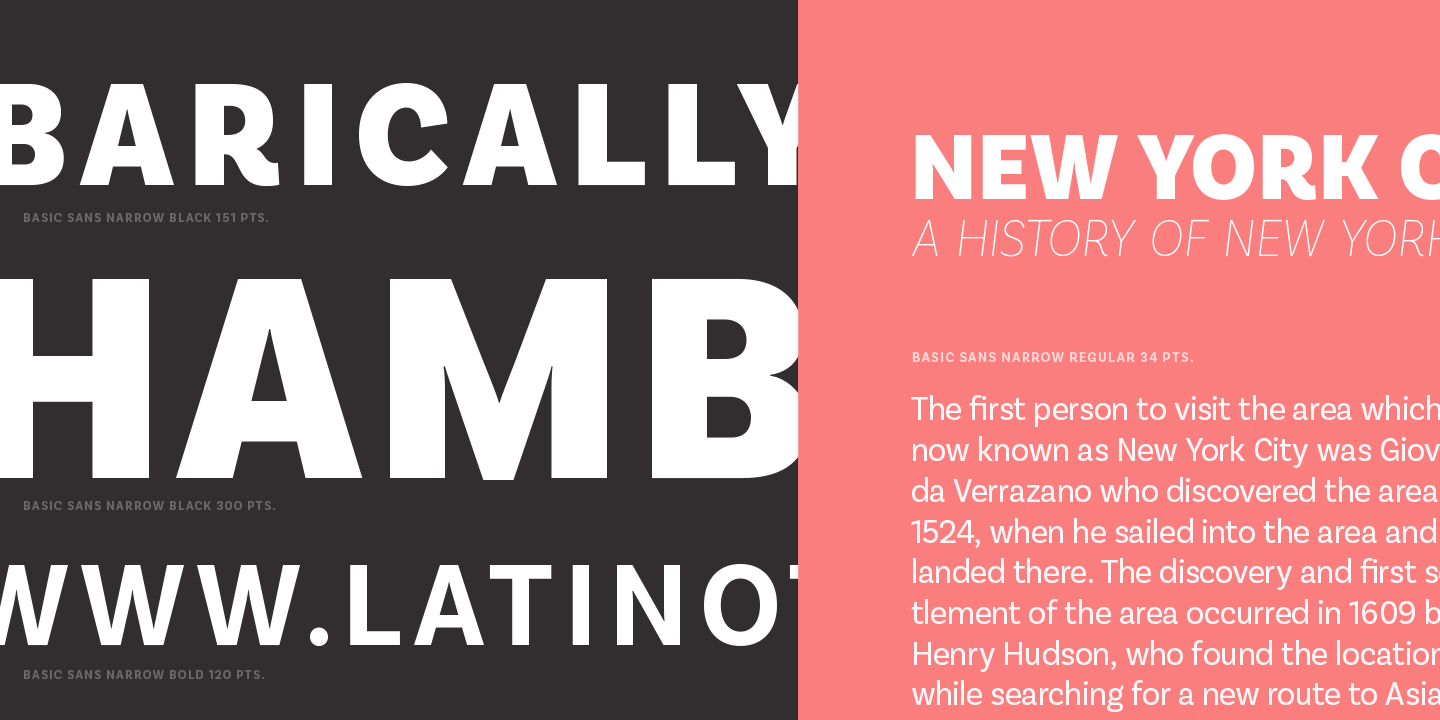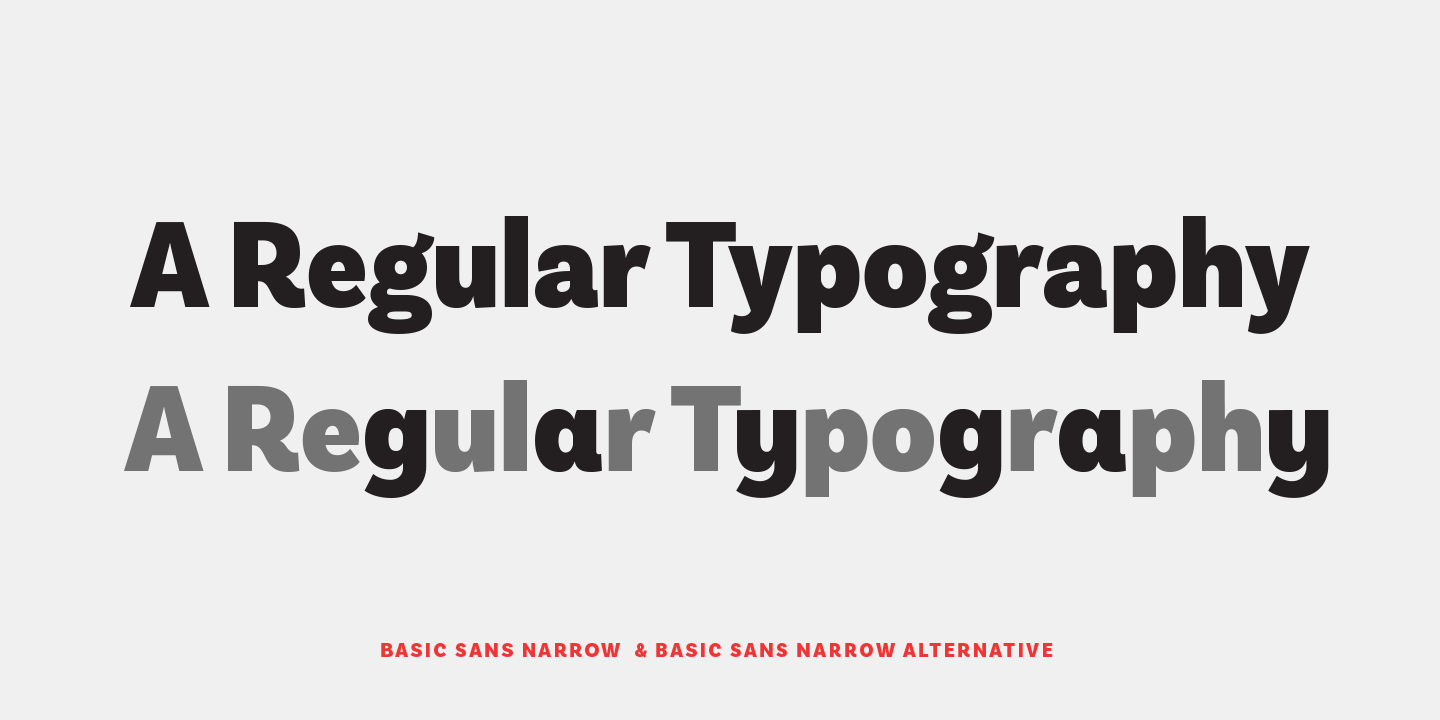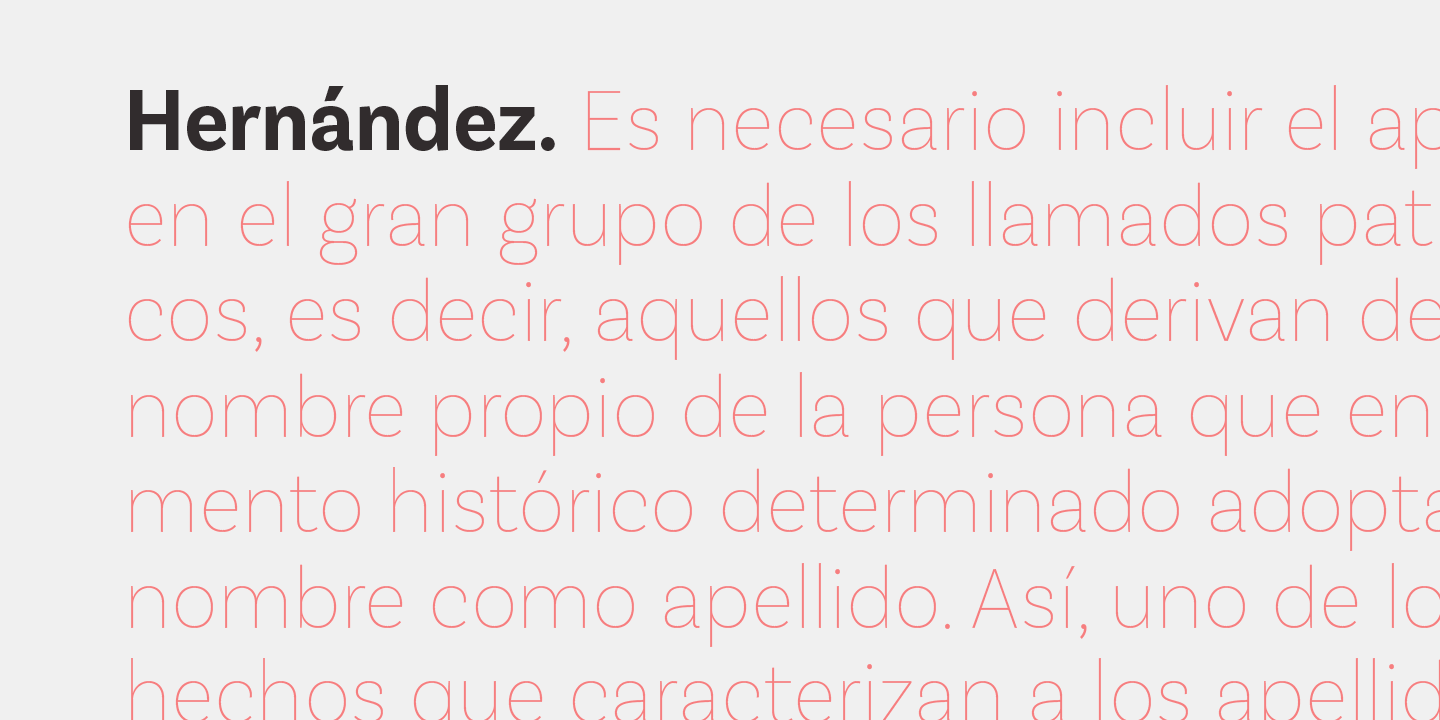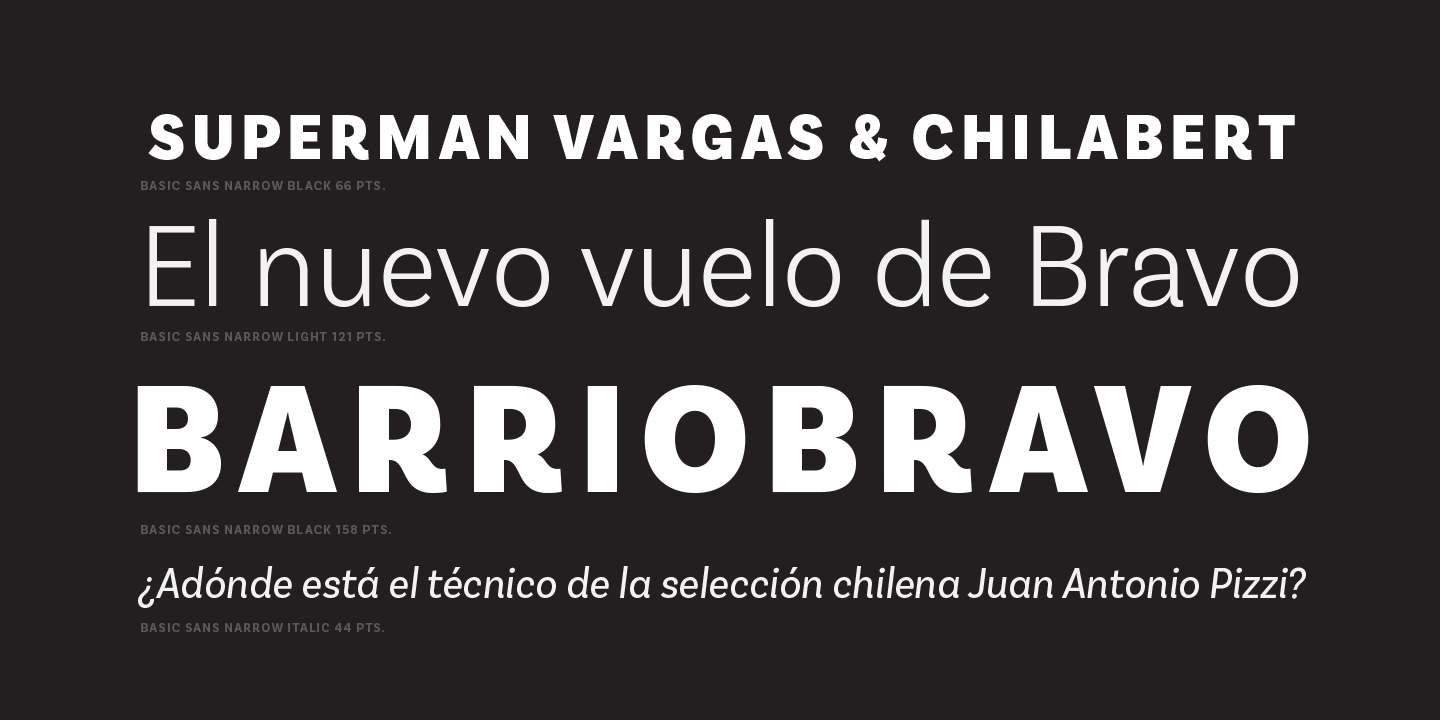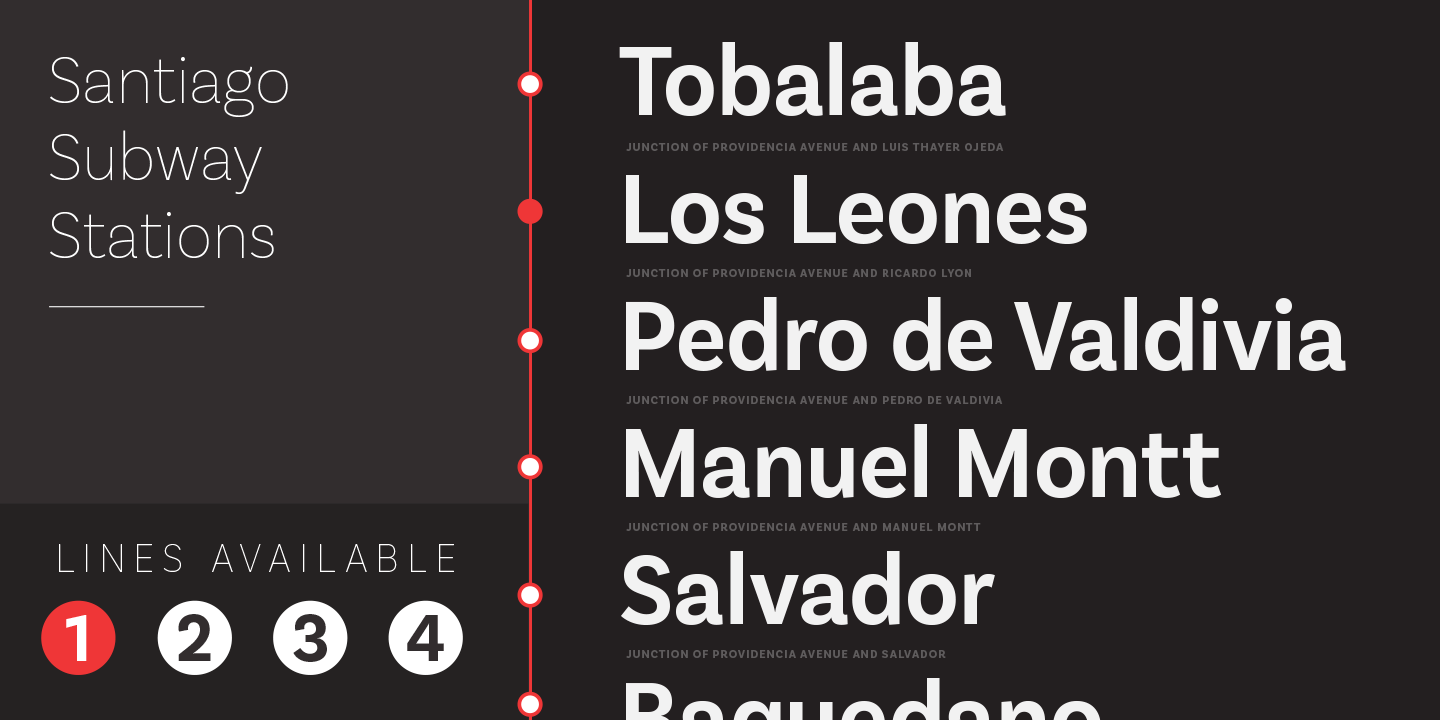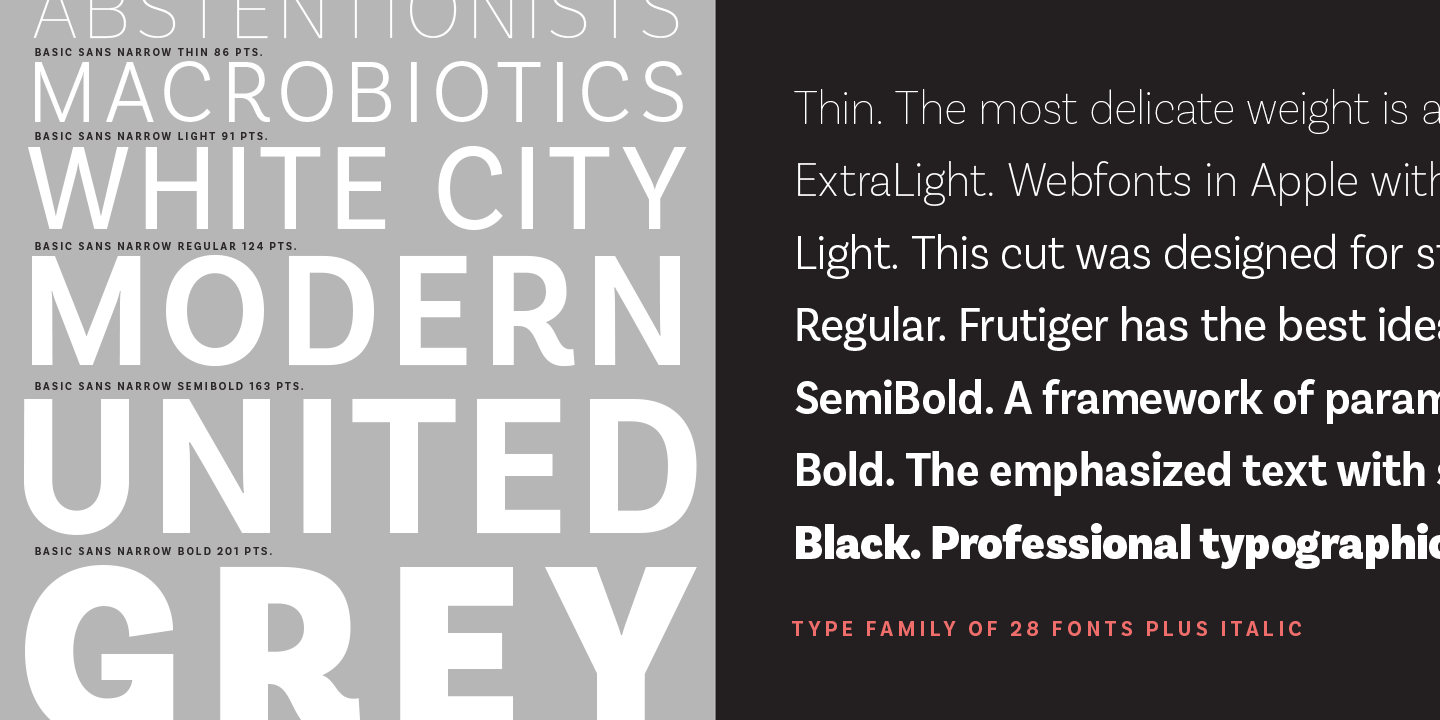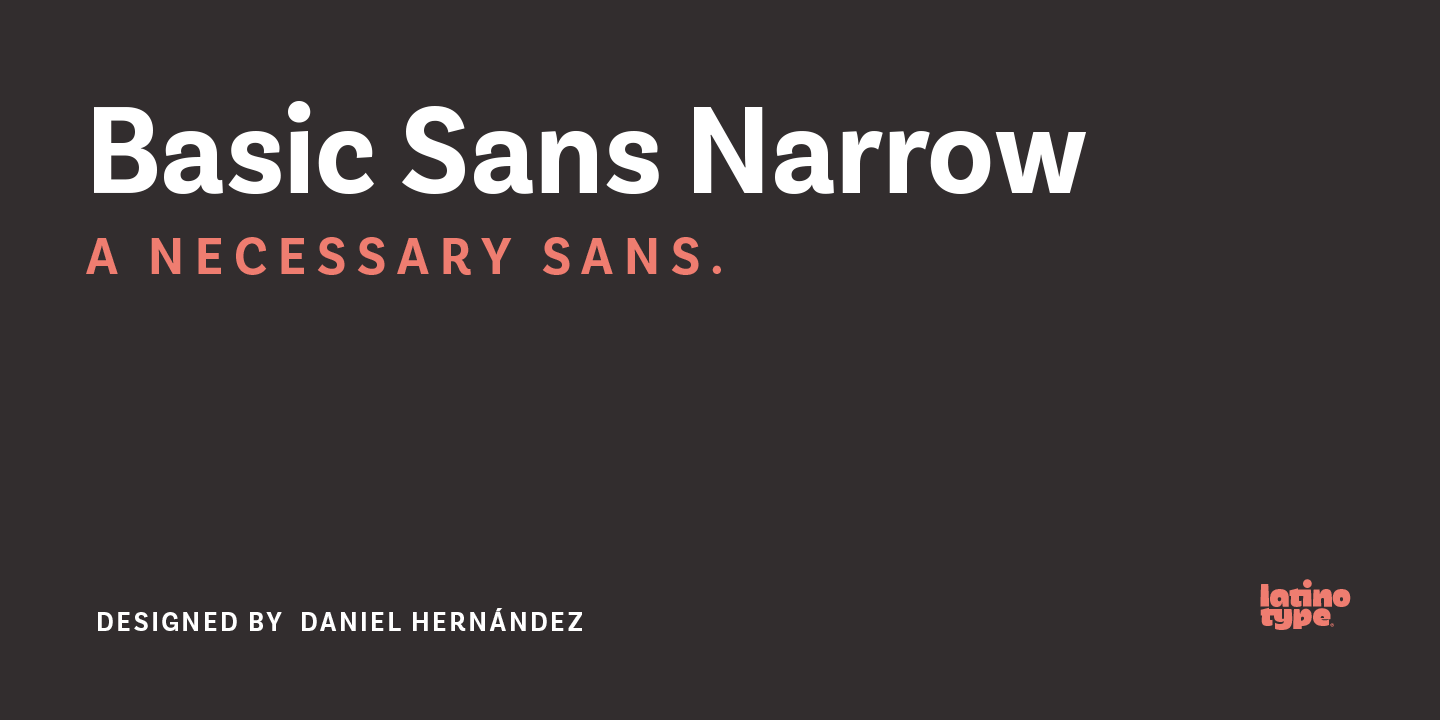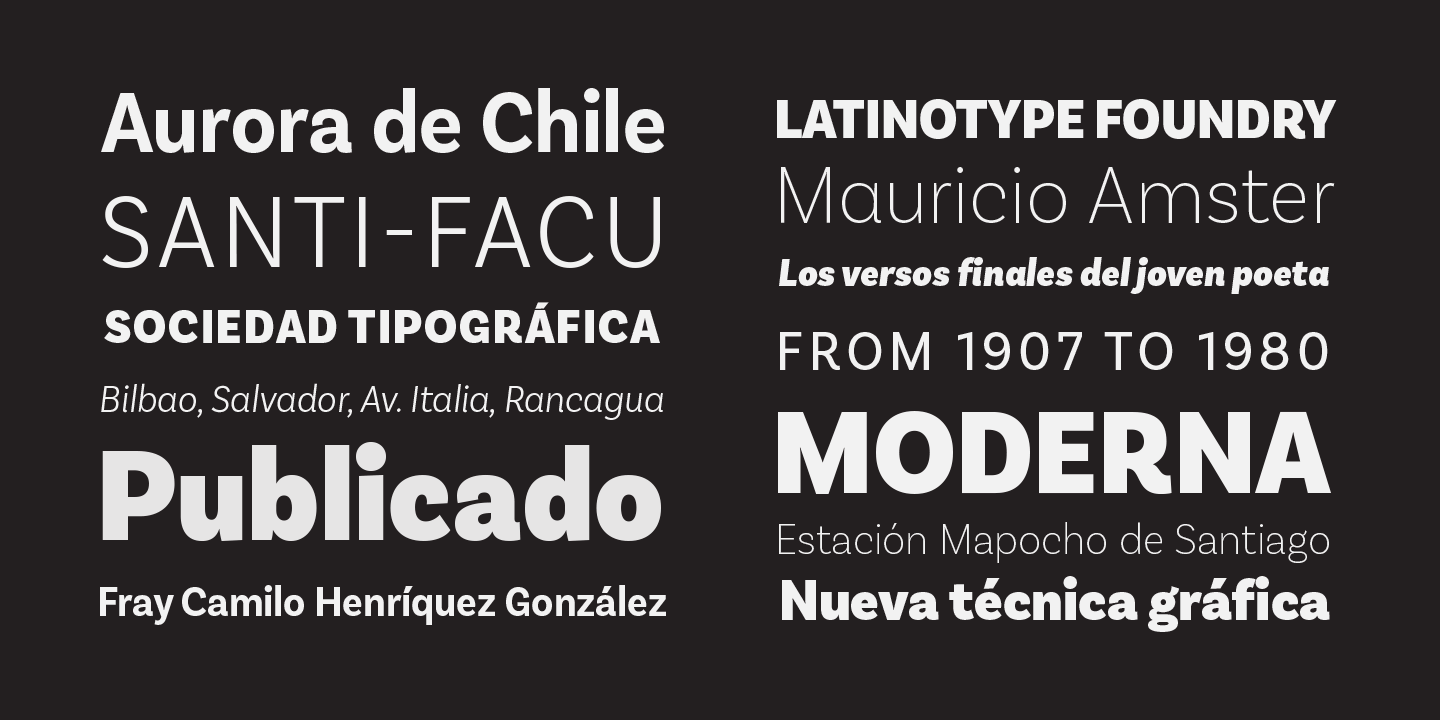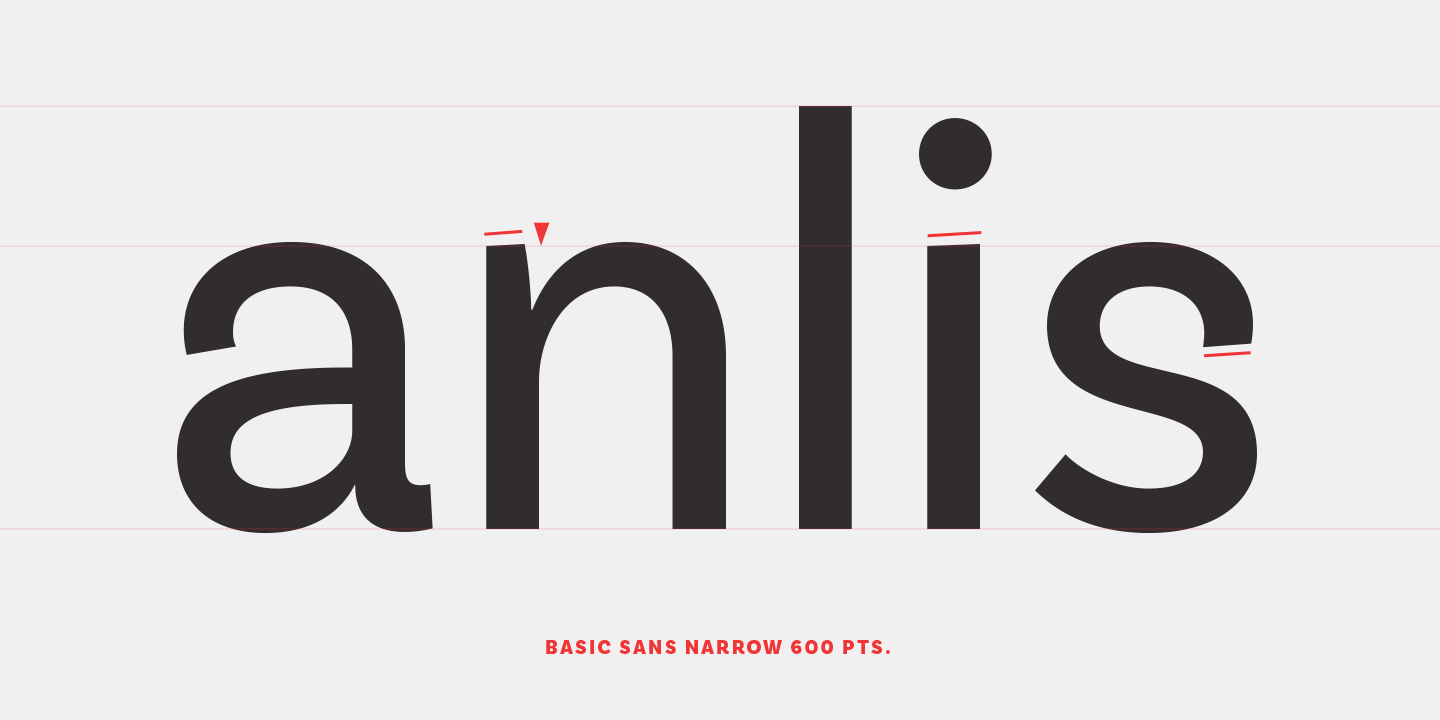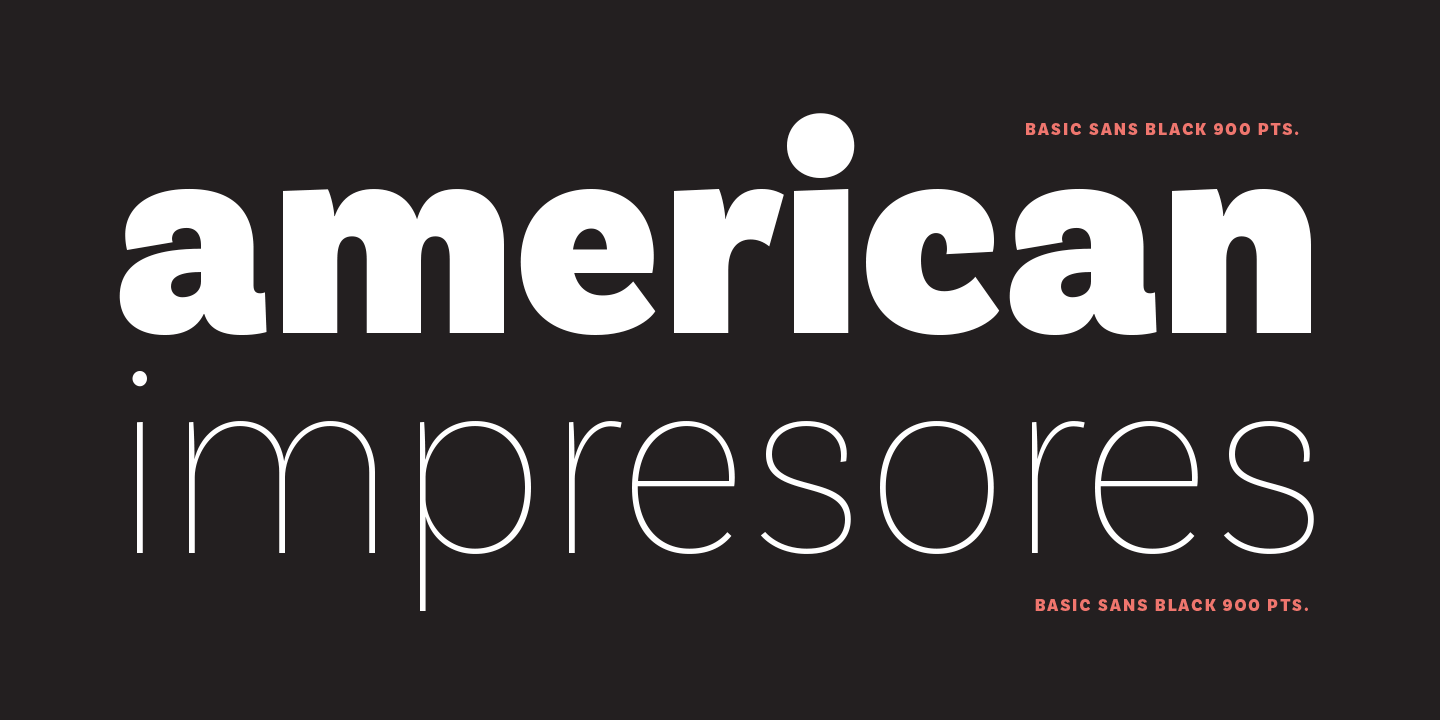
Basic Sans Narrow Complete Family (28 fonts)
Basic Sans Narrow is a sans-serif typeface well-suited for publishing projects, medium-sized text, branding, posters, headlines and more!
This font family comes in 7 weights—ranging from Thin to Black—plus matching italics and it has a set of 416 characters that support 206 different languages.